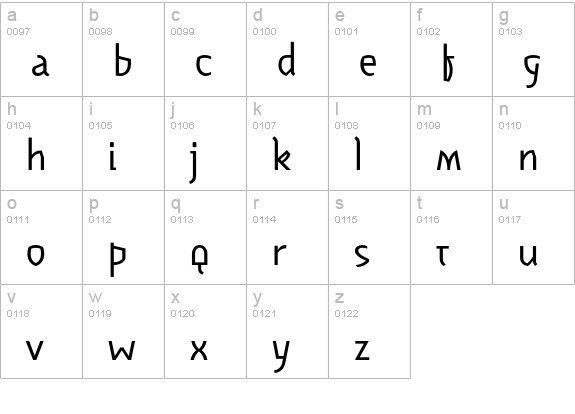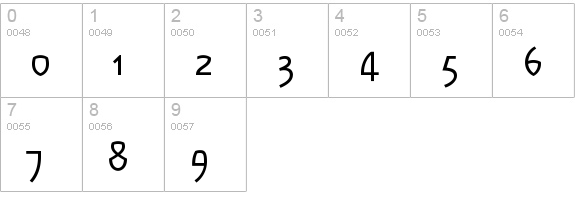
Reality-Hard Font Details
Introducing Reality-Hard, a font that embodies boldness, strength, and an unyielding determination to make a lasting impact. This font is designed for those who dare to break boundaries and challenge the norm, allowing their creativity to shine through every stroke. With its sharp edges and commanding presence, Reality-Hard demands attention and captivates the reader's gaze. Its meticulously crafted characters exude a sense of power and resilience, making it the perfect choice for projects that require a strong and impactful visual statement. But what truly sets Reality-Hard apart is its accessibility. We believe that creativity should never be hindered by financial constraints. That's why Reality-Hard is freely available to download at FontsMarket.com. We believe in empowering individuals, whether they are artists, designers, or simply enthusiasts, by providing them with the tools they need to express their ideas without limitations. Whether you're working on a poster, a logo, a book cover, or any other creative endeavor, Reality-Hard is here to elevate your design to new heights. Its versatility allows it to seamlessly adapt to various styles and themes, ensuring that your message is conveyed with utmost impact and clarity. So, unleash your imagination and embrace the power of Reality-Hard. Let its bold design and uncompromising attitude inspire you to push boundaries and create something truly extraordinary. Download Reality-Hard for free at FontsMarket.com and embark on a journey of limitless creativity.